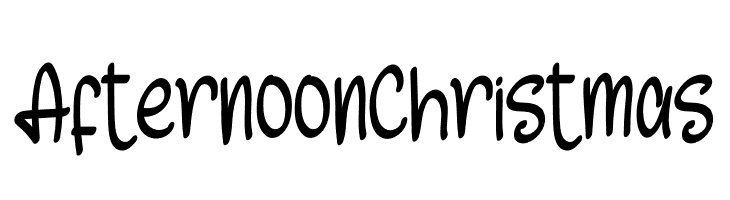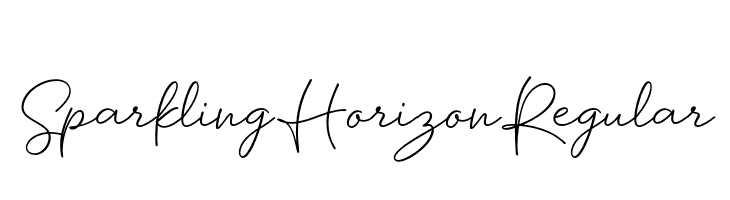
( Fonts by Letterena Studios )
A fluid and elegant script font with smooth, flowing lines.
( Fonts by Nirmala Creative )
A playful, handwritten font with a casual and friendly style.
( Fonts by Typebae Foundry )
A fluid, handwritten cursive font with a casual elegance.
( Fonts by Letterhend Studio )
A playful, handwritten font with smooth curves and a casual style.
( Fonts by Abo Daniel Studio )
A bold, flowing script font with elegant, connected characters.
( Fonts by Abo Daniel Studio )
A monoline script font with a smooth, flowing style and consistent line thickness.
( Fonts by Abo Daniel Studio )
An elegant, flowing script font with a handwritten style.
( Fonts by Maulana Creative )
A bold, cursive script font with a dynamic and energetic style.
( Fonts by Maulana Creative )
A dynamic, expressive handwritten font with fluid strokes and a lively character.
( Fonts by Mariyana )
A thin, elegant handwritten font with a casual, flowing style.